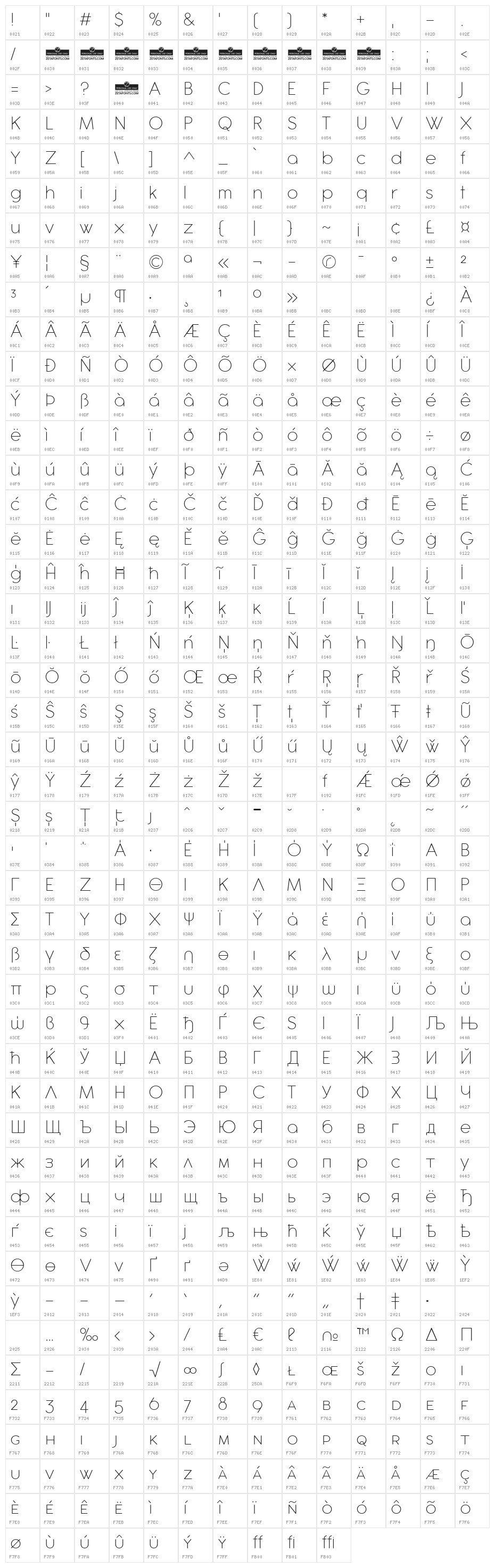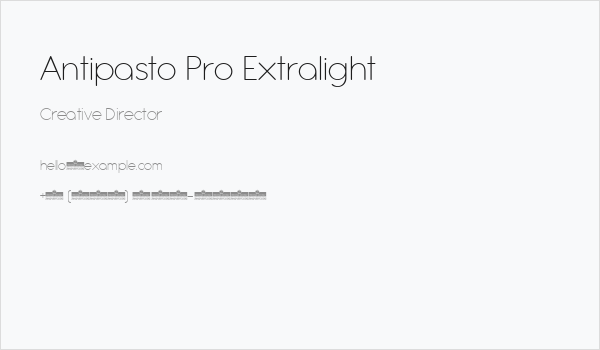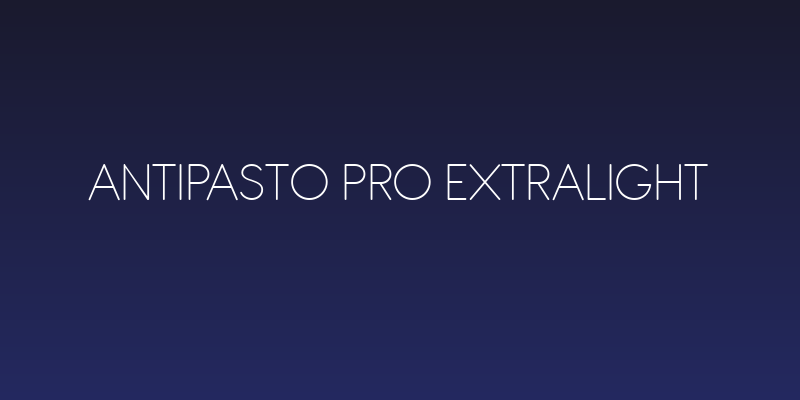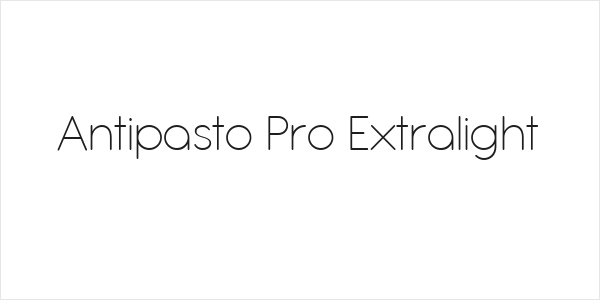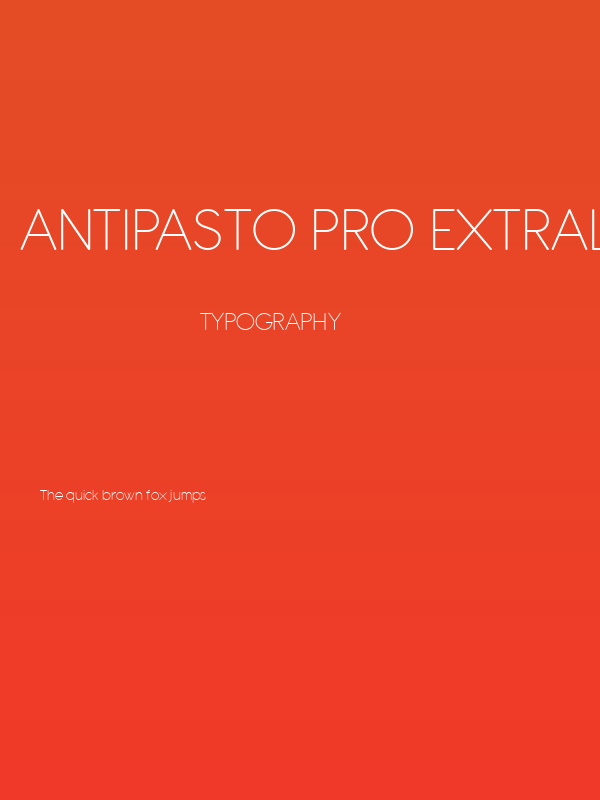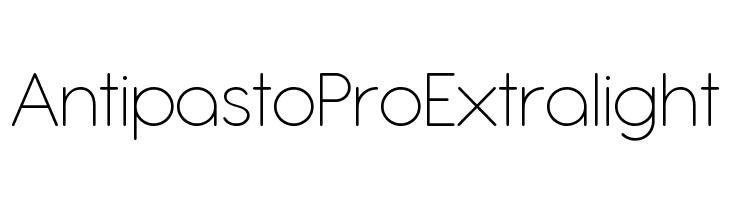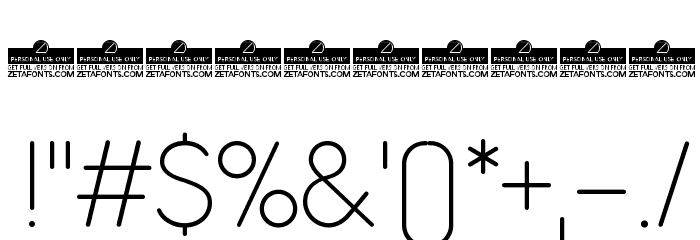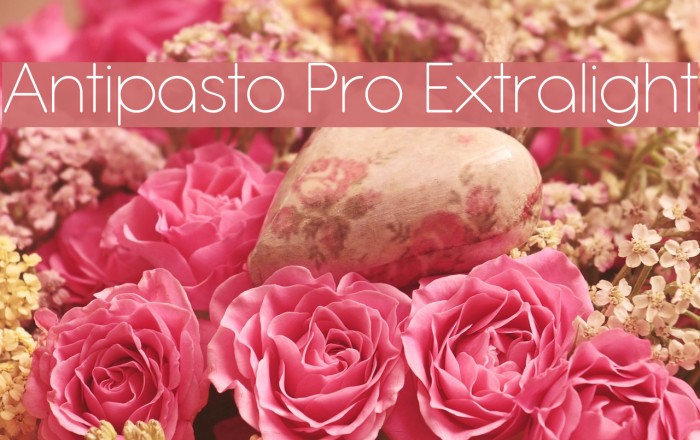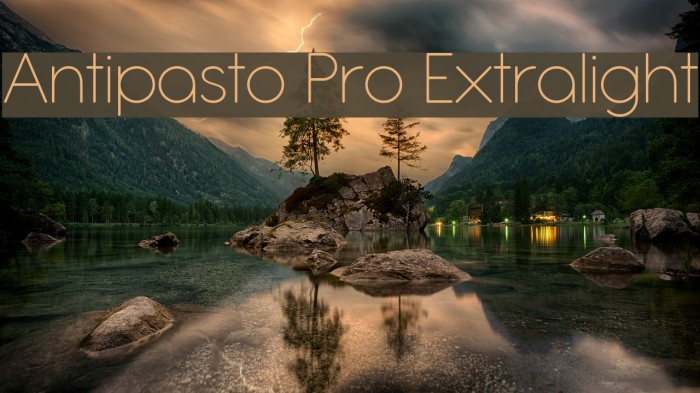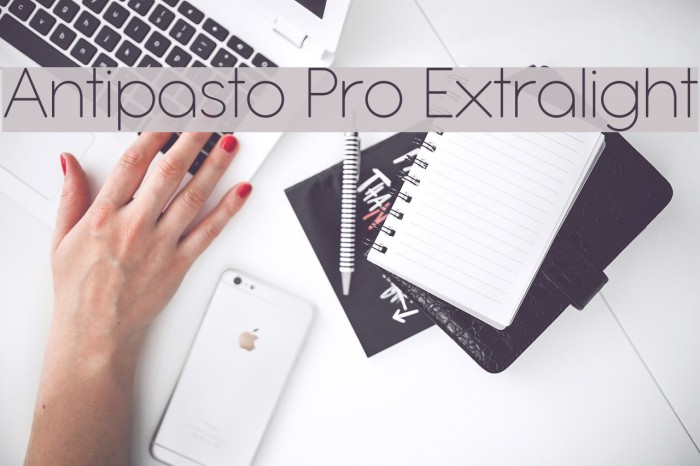
Antipasto Pro Extralight Font
Antipasto Pro Extralight Description
This font features a clean and modern design with a minimalist aesthetic. The characters are crafted with a uniform stroke width, giving it a sleek and sophisticated appearance. The uppercase and lowercase letters are well-proportioned, maintaining a consistent height and spacing that enhances readability. The numerals and special characters are designed to complement the alphabet, ensuring a cohesive look across all text. Its simplicity and elegance make it versatile for various design applications.